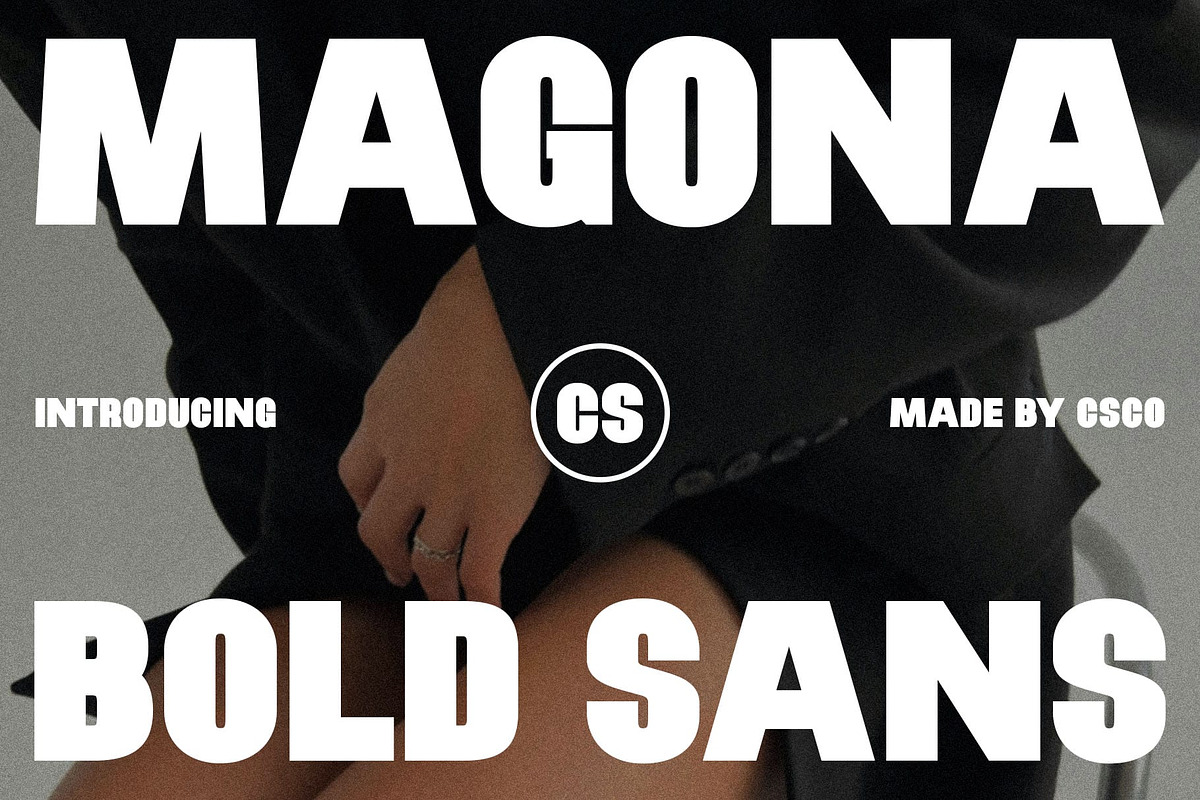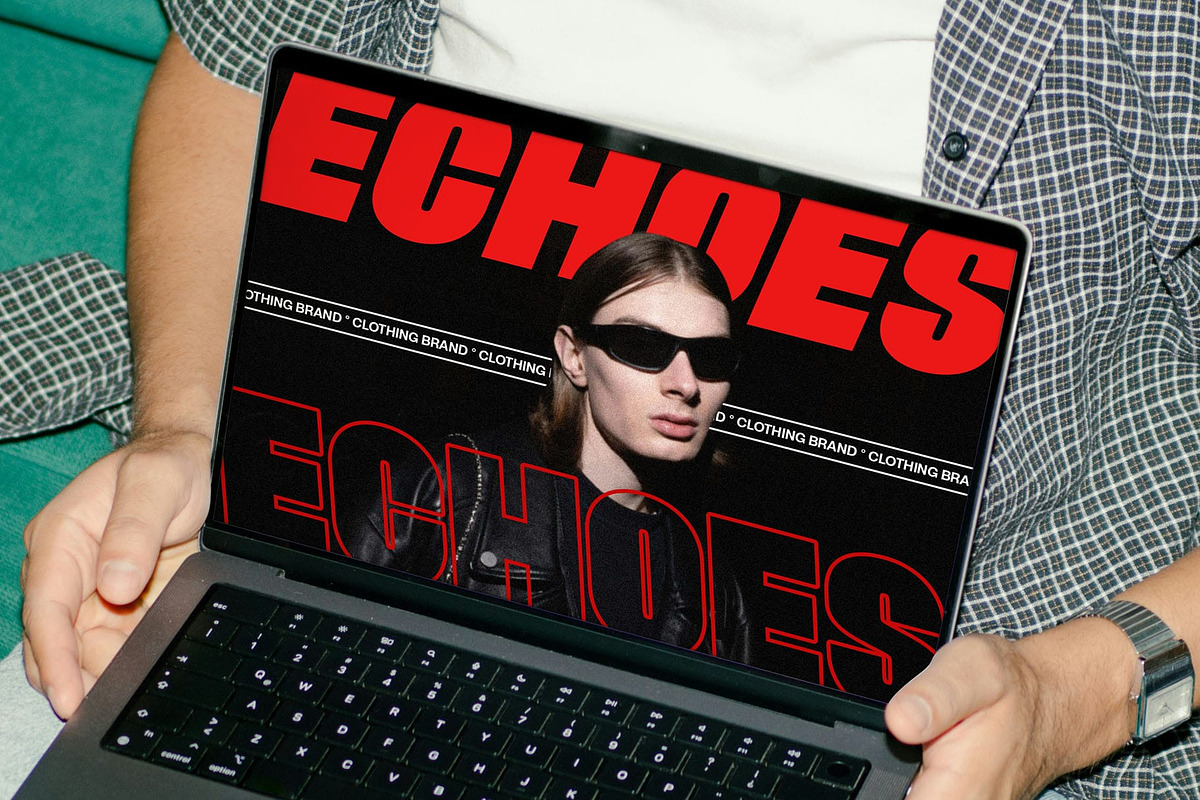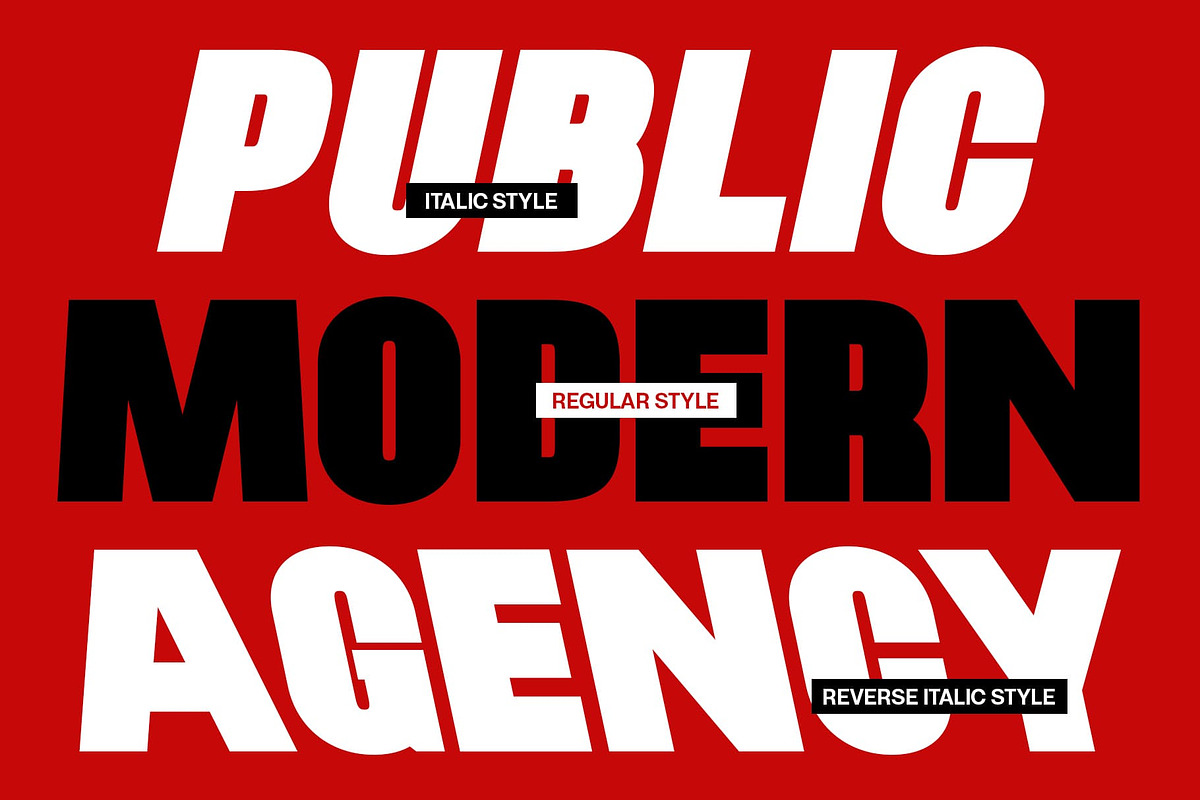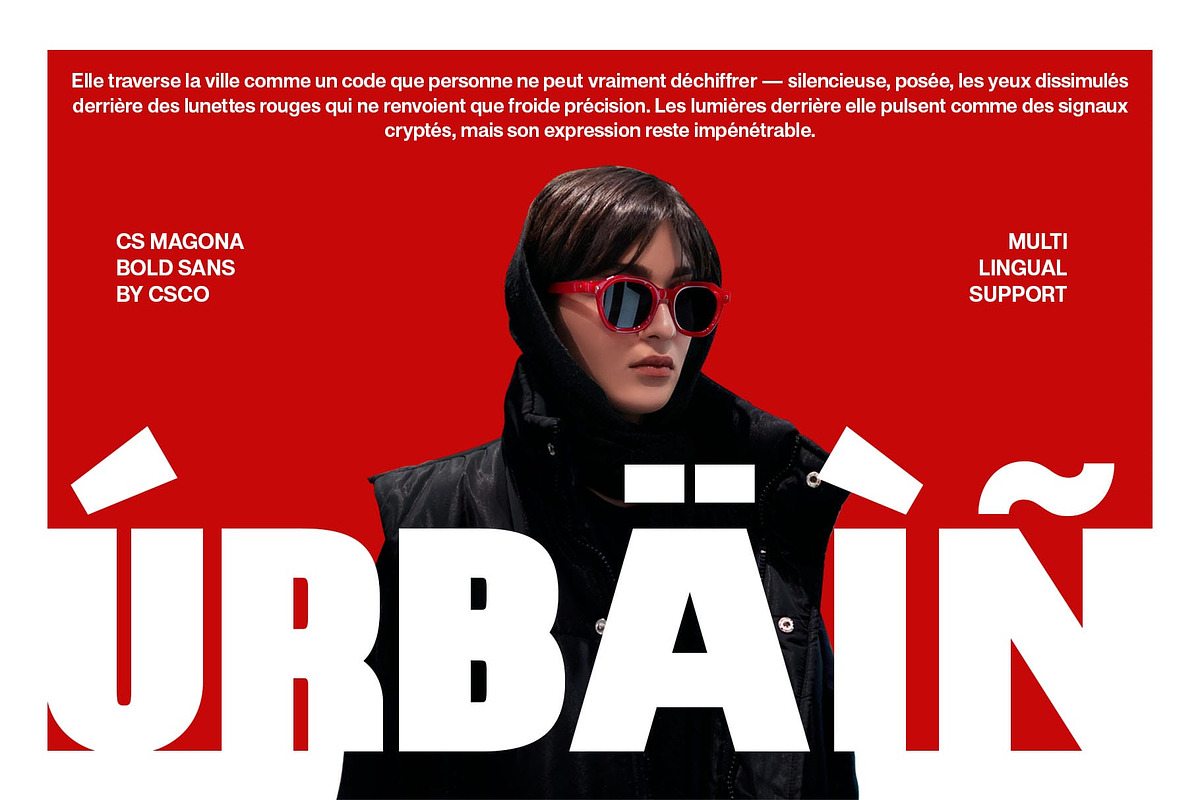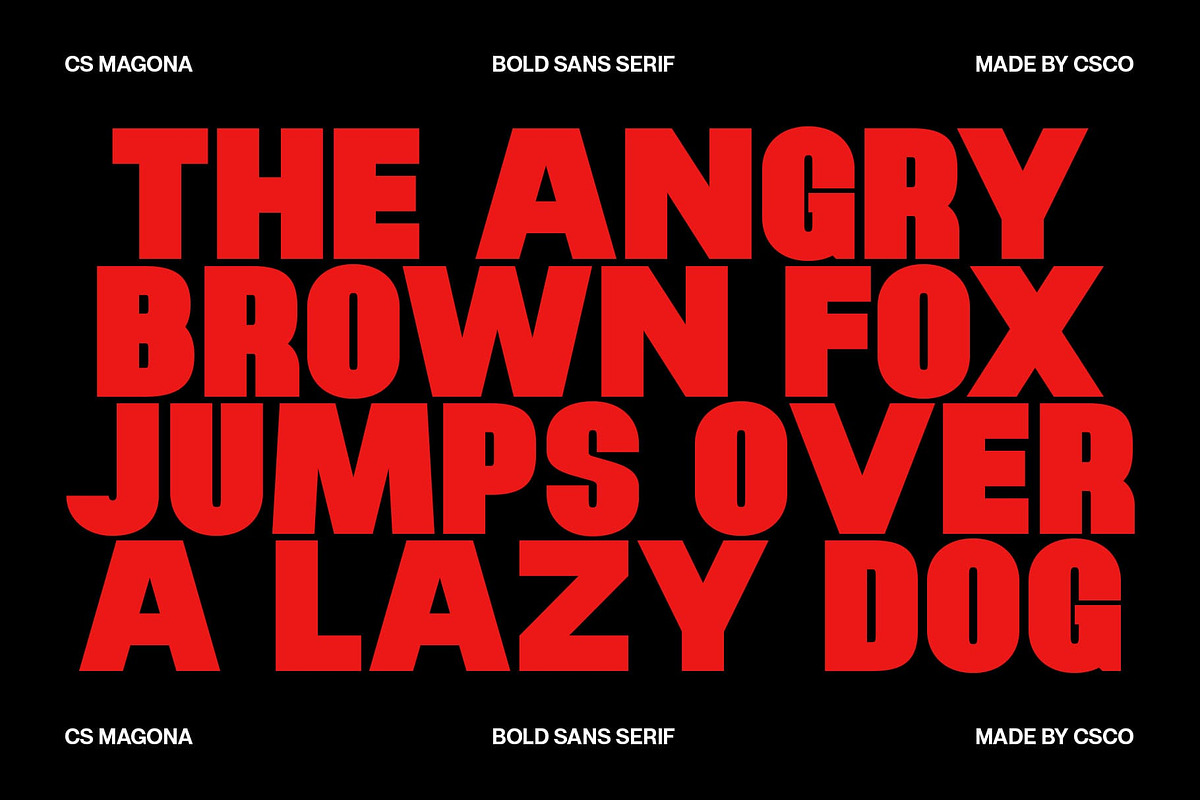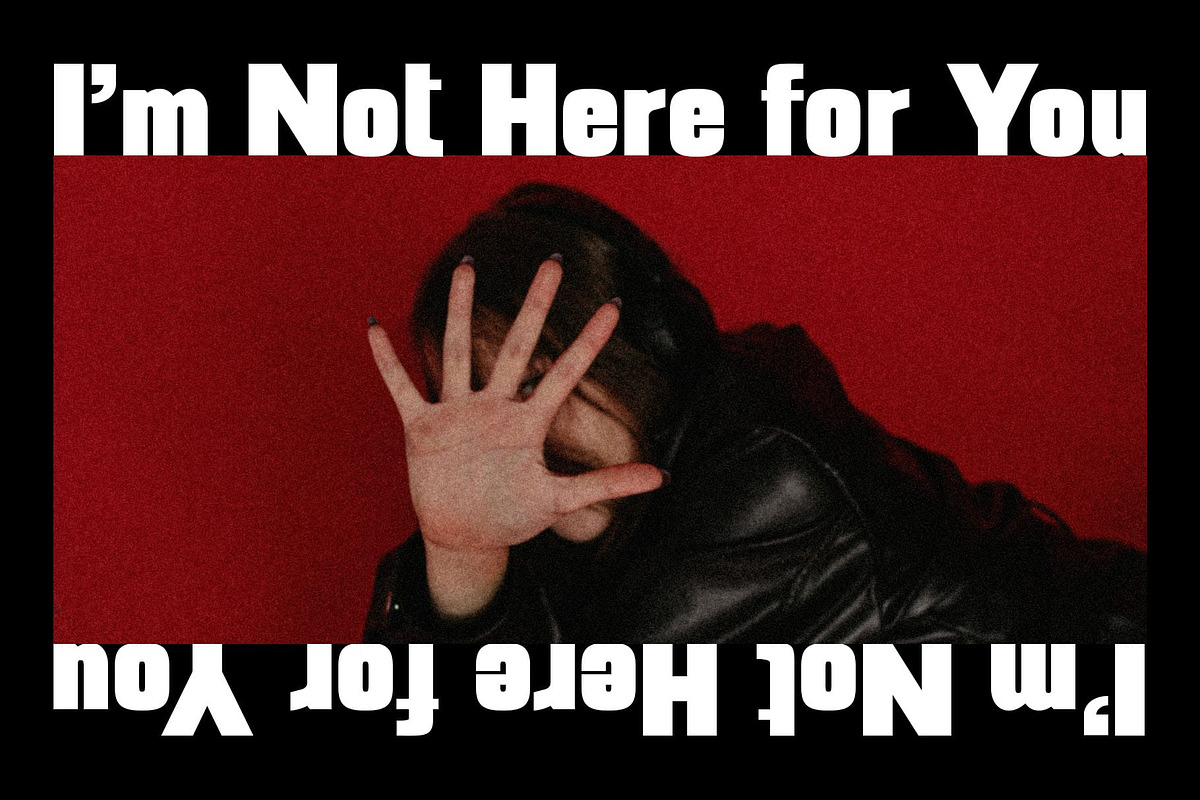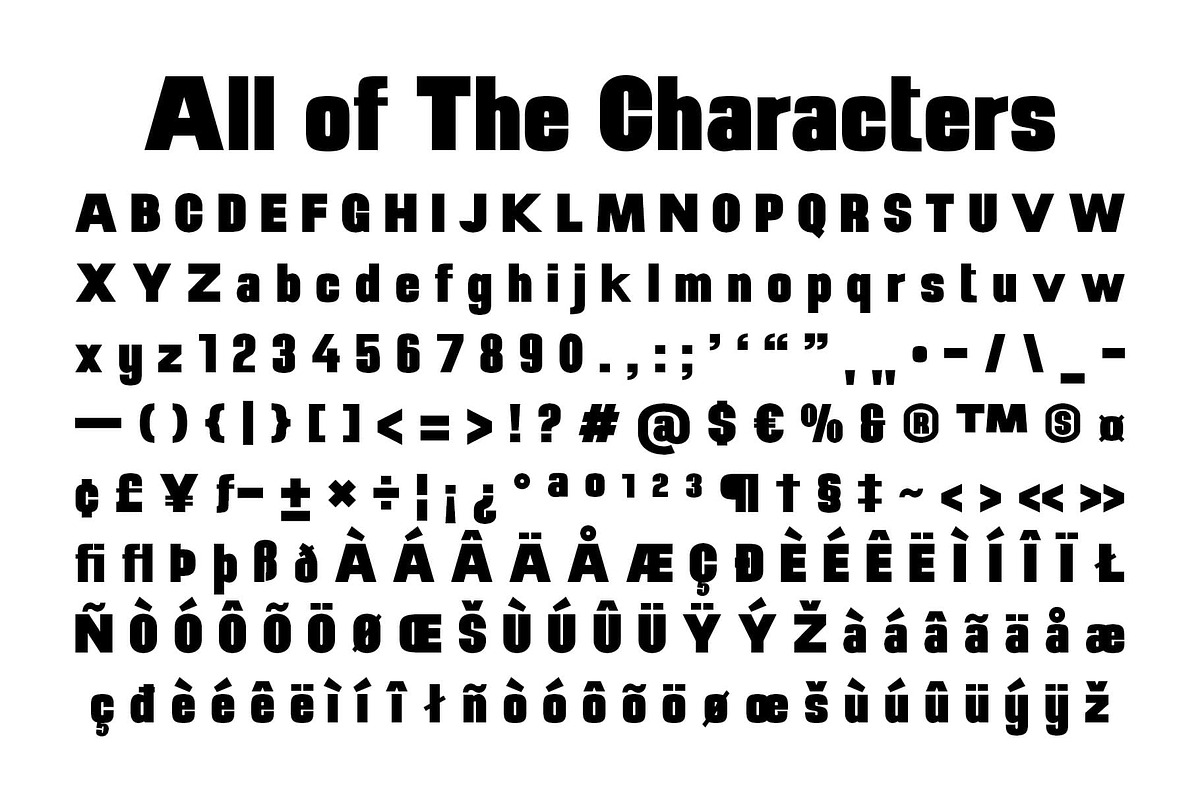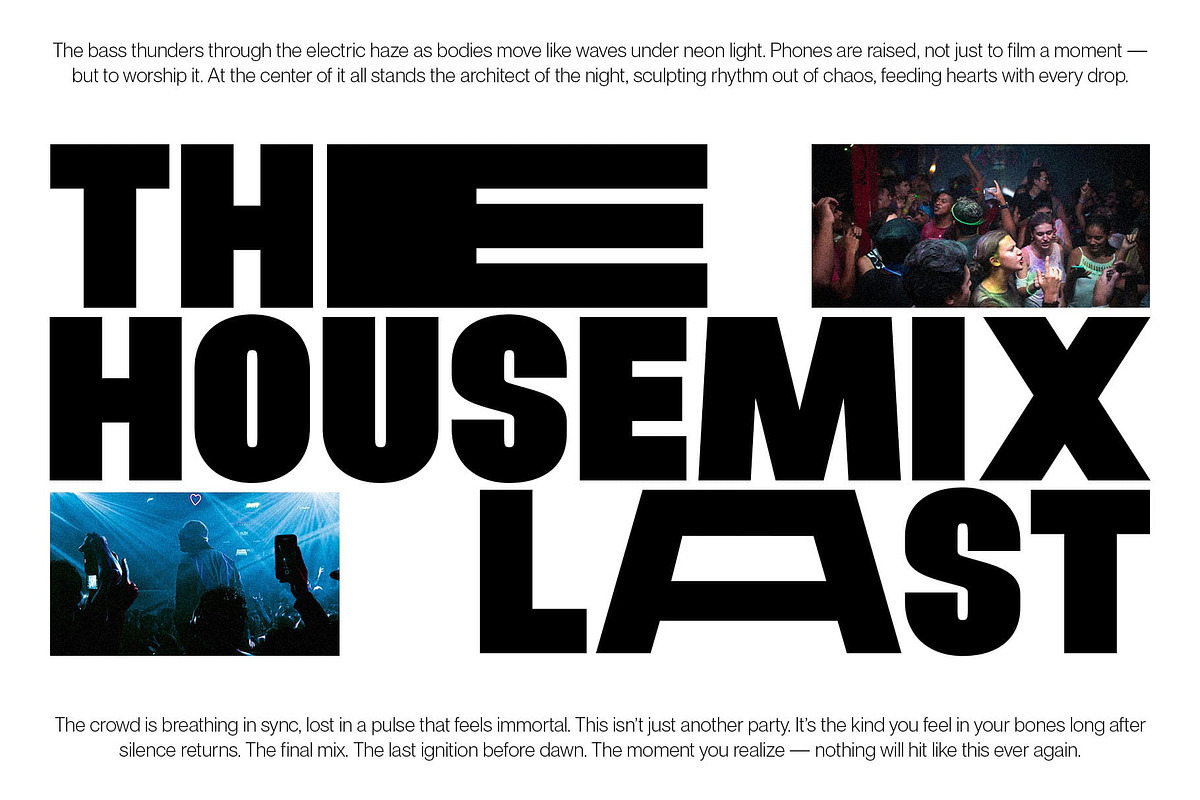
CS Magona – Bold Sans Serif
CS Magona – Bold Energy for Modern Design
Striking Sans Serif for Confident Statements This is a bold sans serif display font crafted to command attention. Its strong, modern letterforms combine geometric precision with expressive balance, creating a typeface that radiates confidence and energy. Designed for designers who want their message to stand out, this font transforms any layout into a bold visual statement.
Modern Shapes with Expressive Character Each letter in this font is shaped with clean lines and dynamic proportions, giving it a contemporary yet approachable presence. The combination of structure and expressiveness makes this font ideal for designs that need both clarity and style. Whether used large or small, it brings instant impact and modern flair to any composition.
Perfect for Headlines, Posters, and Branding From striking headlines to eye-catching posters and modern branding, this font delivers strong visual power. Its bold design ensures maximum readability while maintaining a stylish aesthetic ideal for brands and creators who value both creativity and professionalism in their work.
Contemporary Style with Lasting Appeal This font isn’t just about strength it’s about style that endures. Its sleek, versatile form adapts effortlessly to digital and print designs, offering a contemporary look that feels both current and timeless. For designers aiming to express confidence, vibrancy, and modern sophistication, this font is the perfect choice.
- CS Magona Regular
- CS Magona Italic
- CS Magona Reverse Italic